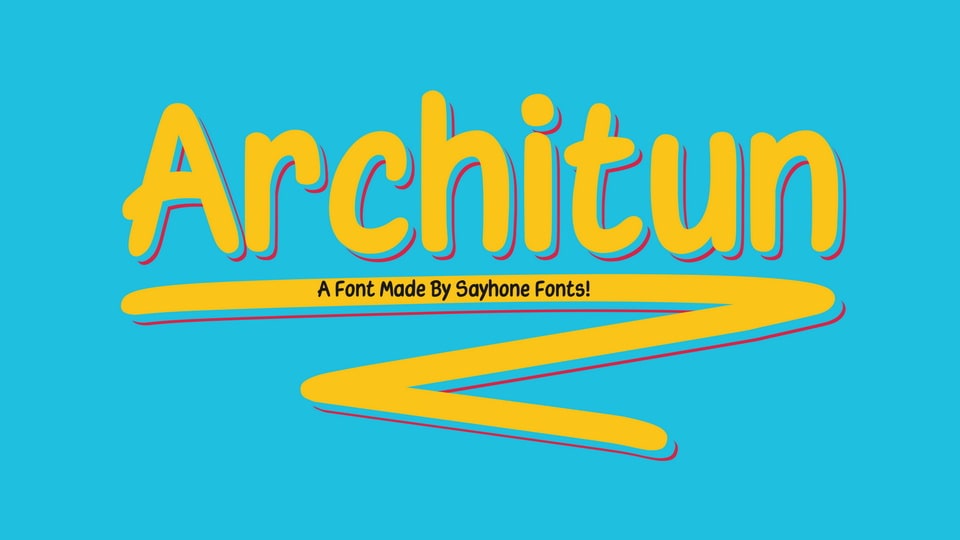
Download Architun font, a comic book-style typeface based on the handwriting seen in the image on GitHub. Architun has only one weight and 931 glyphs, but there will be more weights and more glyphs in the future.
Designer: Sayhone